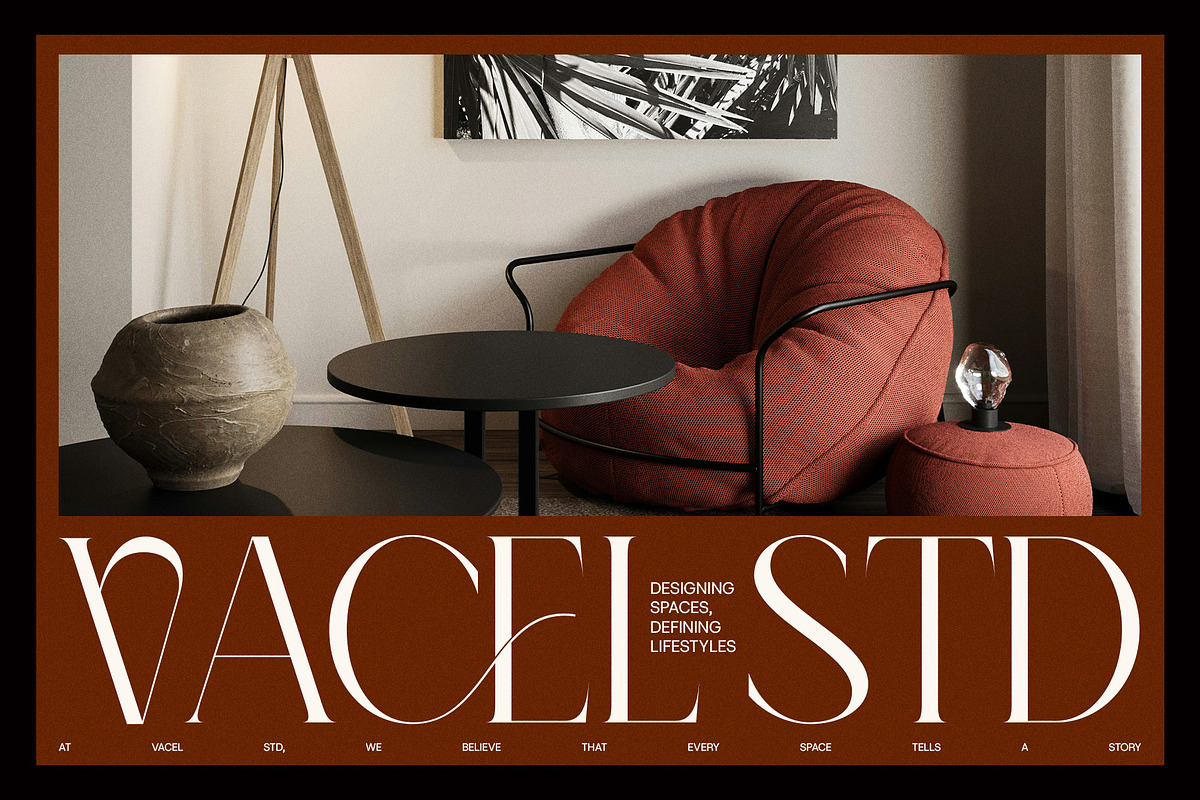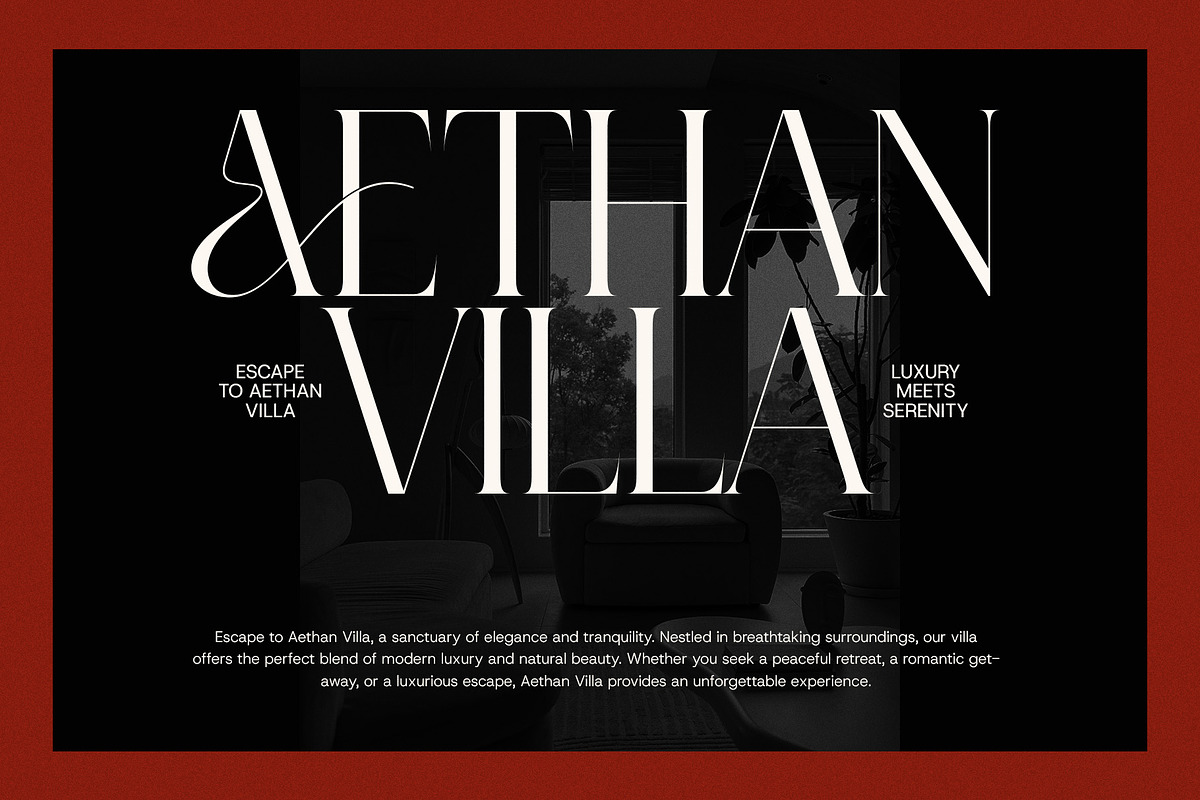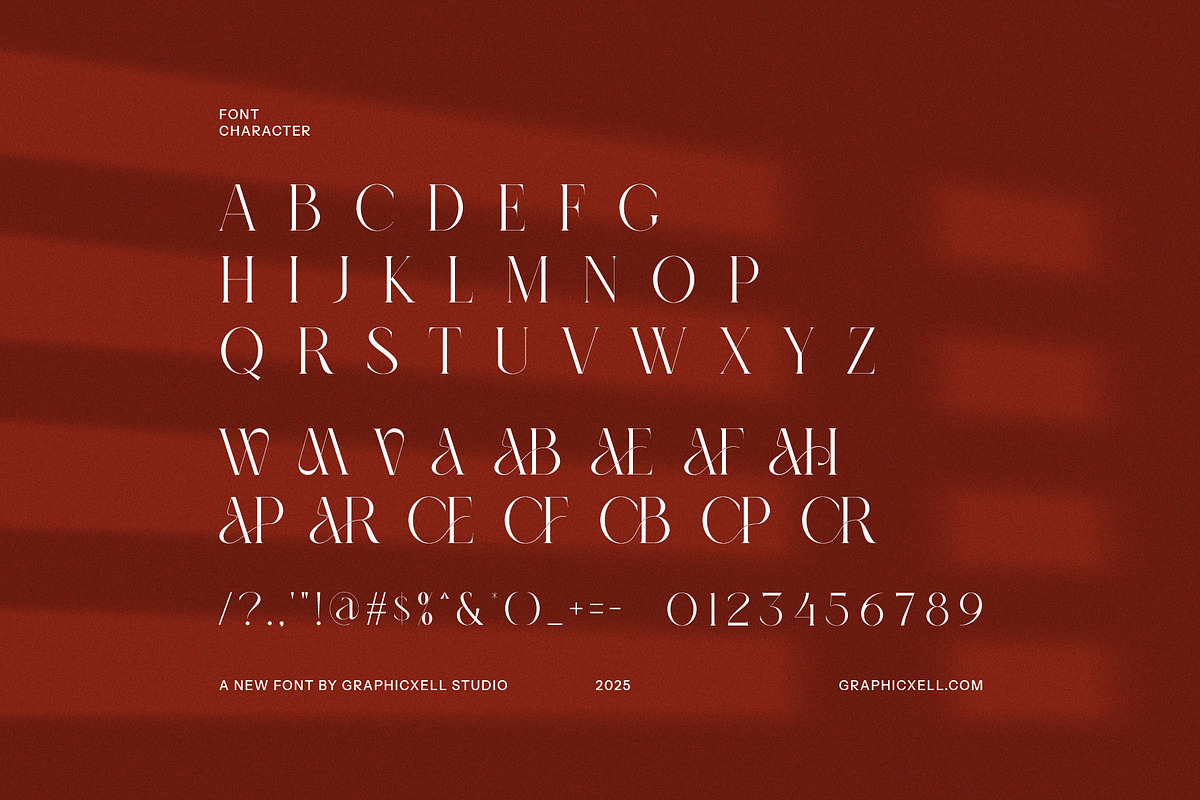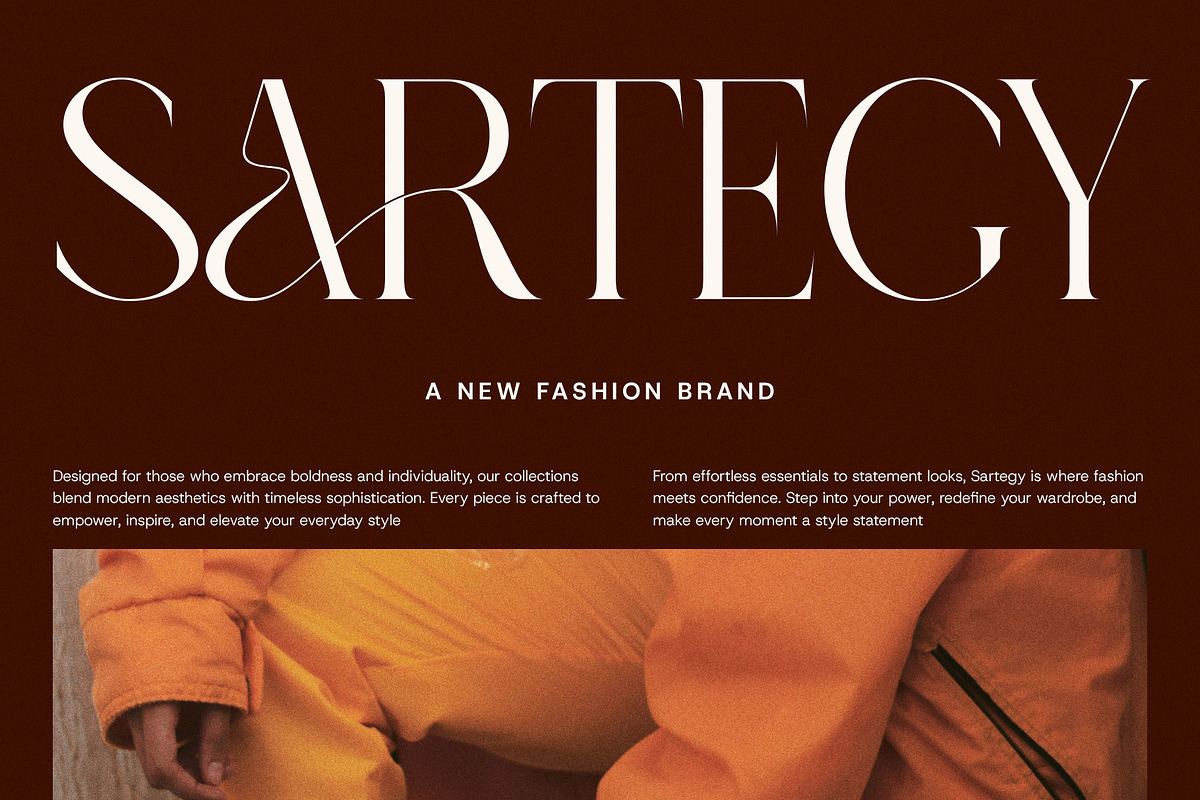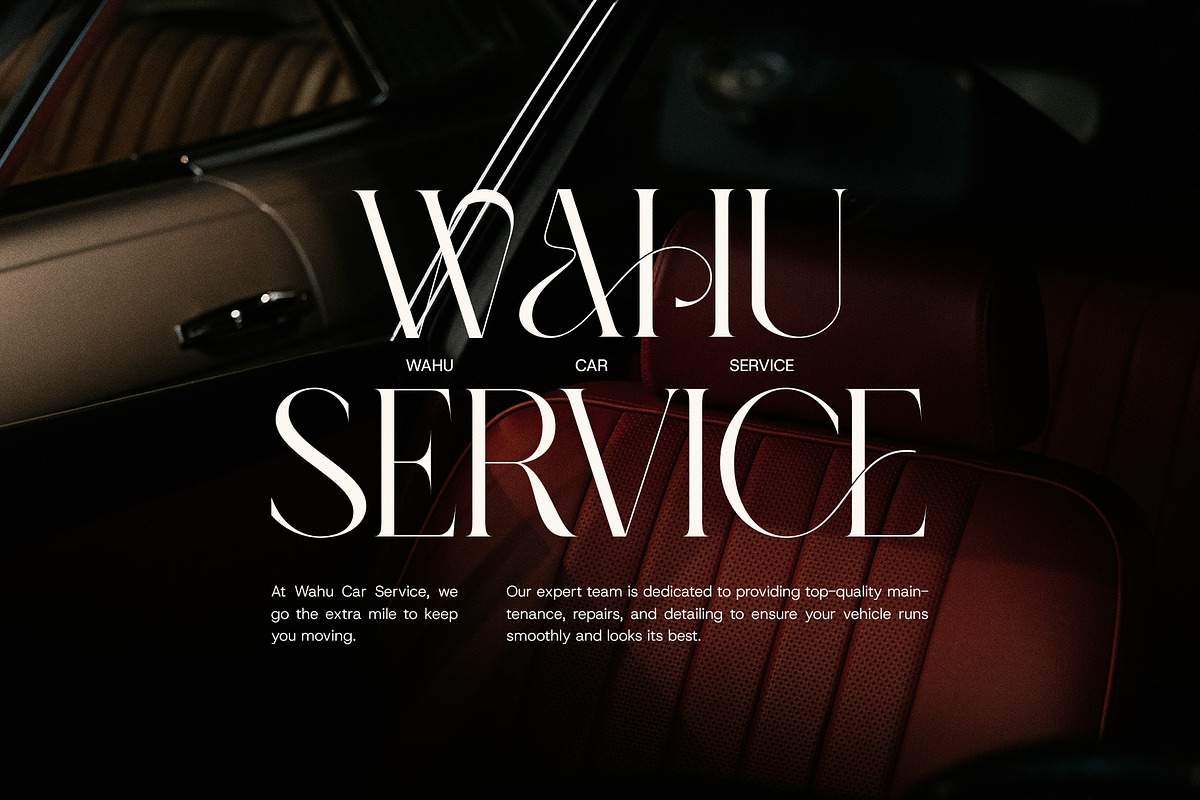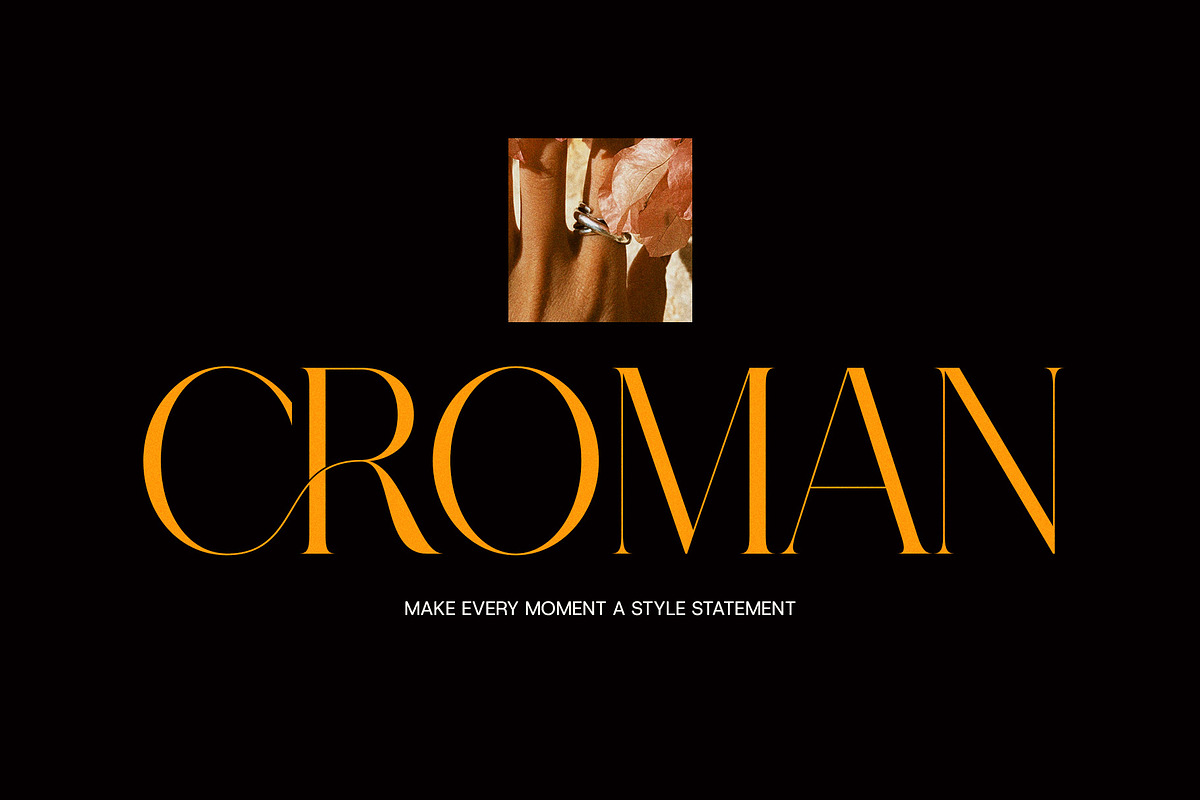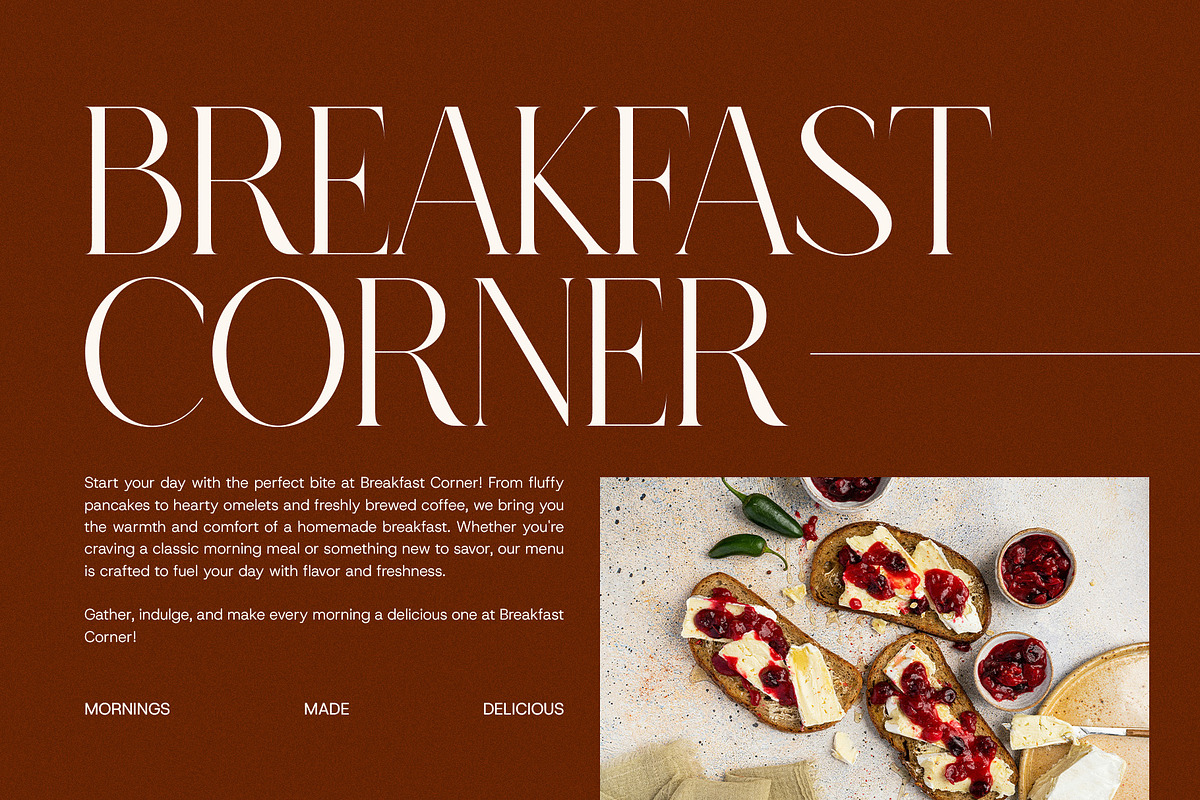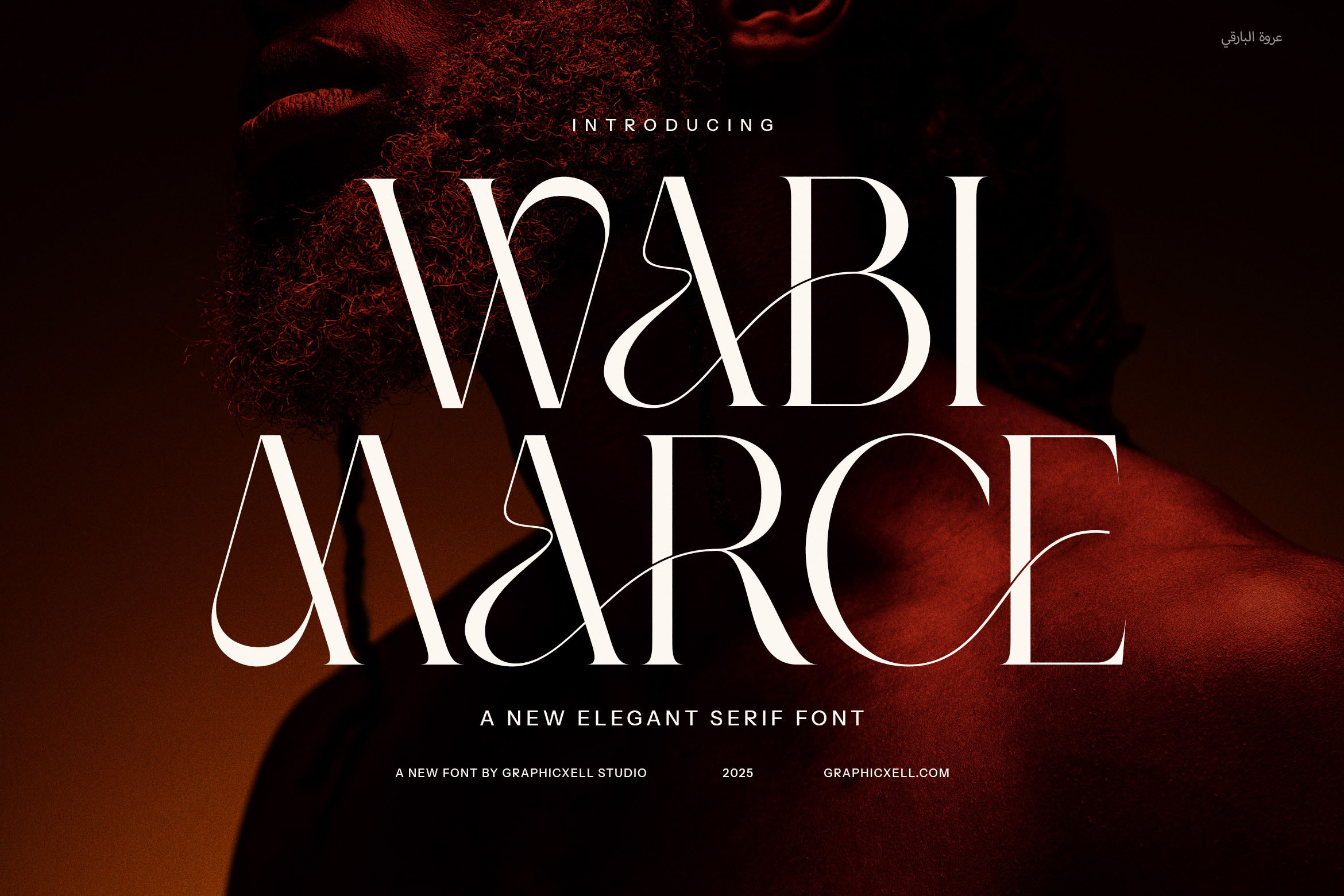
Wabi Marce Elegant Serif Font
Wabi Marce Elegant Serif is a sophisticated typeface that blends modern minimalism with timeless charm. Designed with precision, this font features refined serifs, graceful curves, and a collection of beautifully crafted ligatures and alternates, making it an excellent choice for high-end branding and stylish design projects.
The delicate balance between classic elegance and contemporary aesthetics makes Wabi Marce perfect for luxury logos, editorial layouts, premium packaging, and fashion-forward websites. Its smooth flow and refined letterforms create a sense of sophistication, ensuring that every design stands out with an effortless yet polished appeal.
This font is tailored for creative professionals looking to add a touch of exclusivity to their work. Whether used in boutique branding, high-fashion magazines, modern advertisements, or elegant invitations, Wabi Marce exudes a unique charm that elevates any visual composition. The carefully designed alternates and ligatures allow for endless customization, making it easy to craft distinctive, stylish typography that captures attention.
Versatile and refined, Wabi Marce Elegant Serif adapts beautifully to both digital and print applications, ensuring readability without compromising on artistic expression. It’s an ideal choice for those who appreciate premium typography with a sleek, modern edge.
Embrace the elegance of Wabi Marce and let its luxurious design transform your creative vision into a masterpiece. Whether for branding, editorial layouts, or sophisticated packaging, this font brings a sense of artistry and refinement to every project.